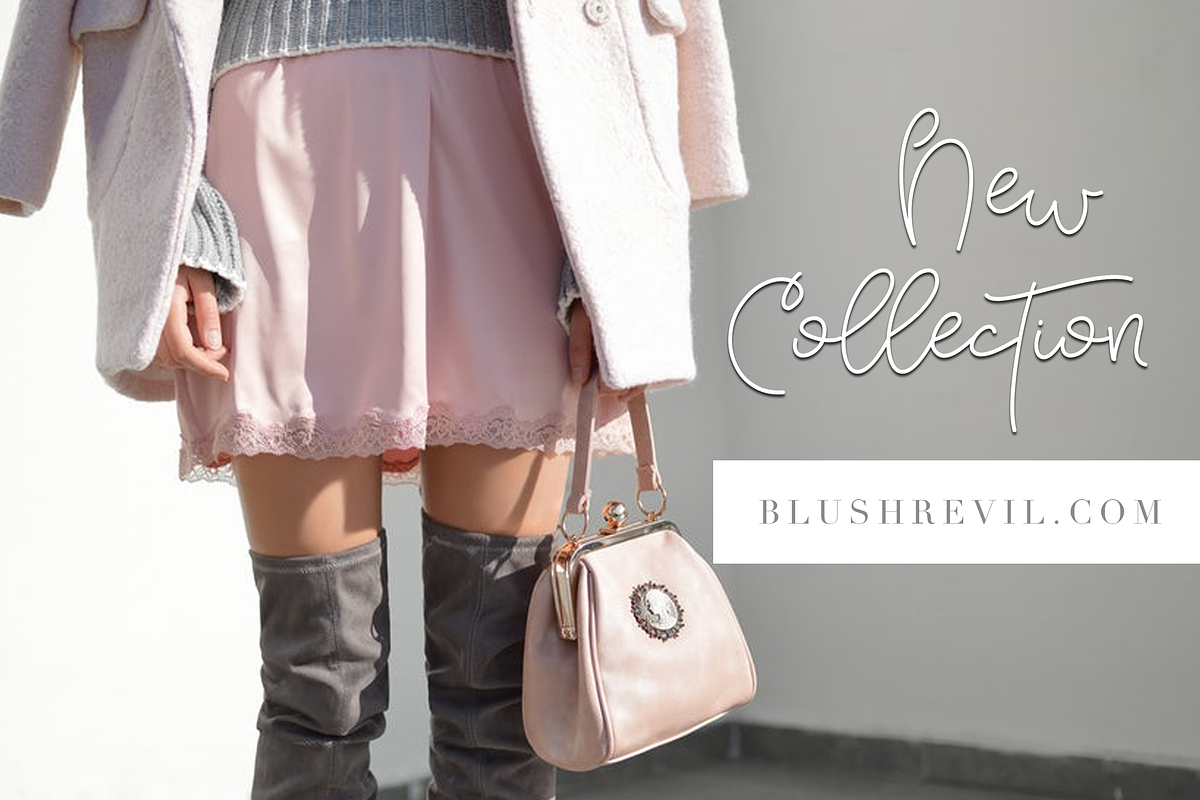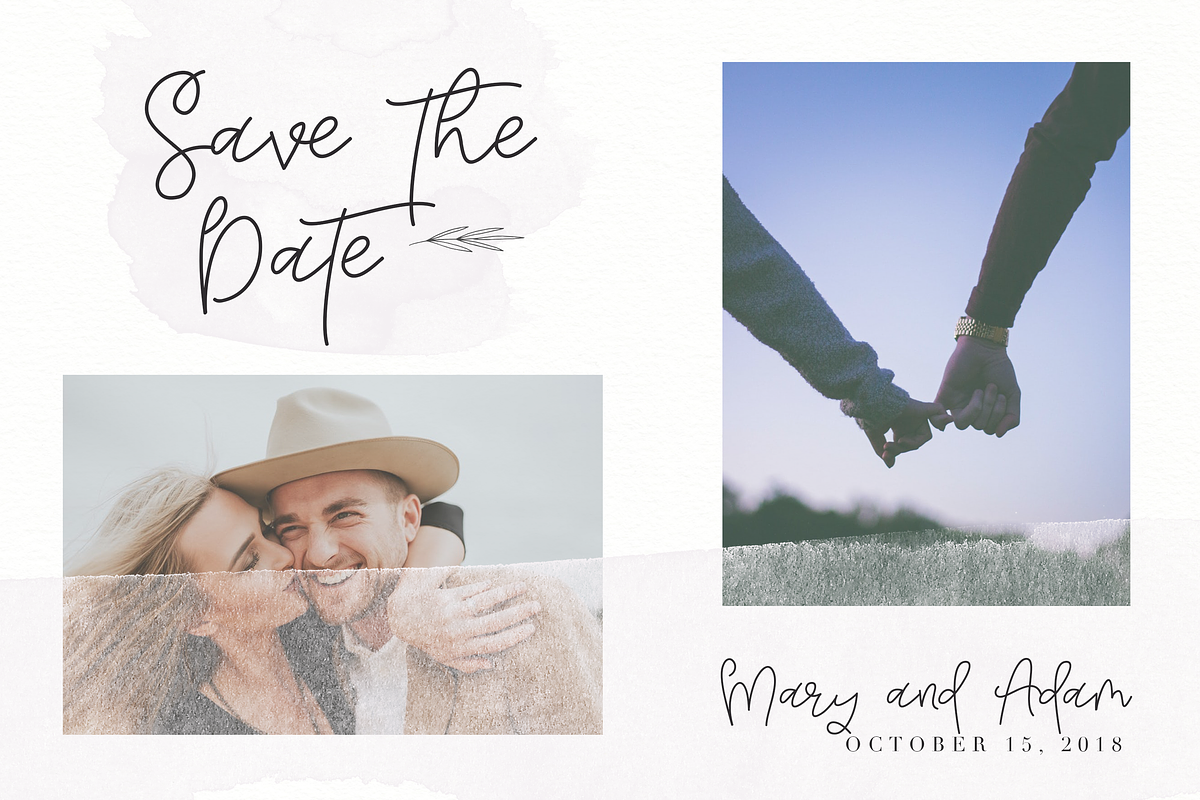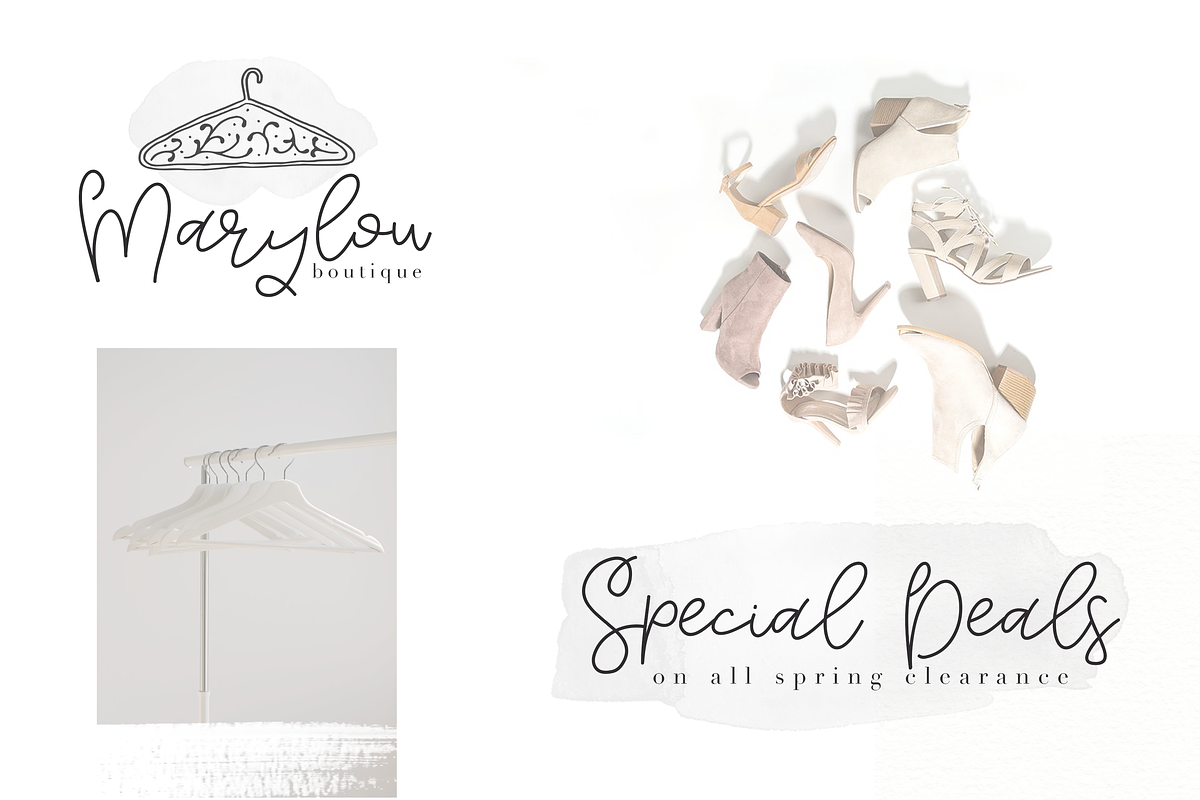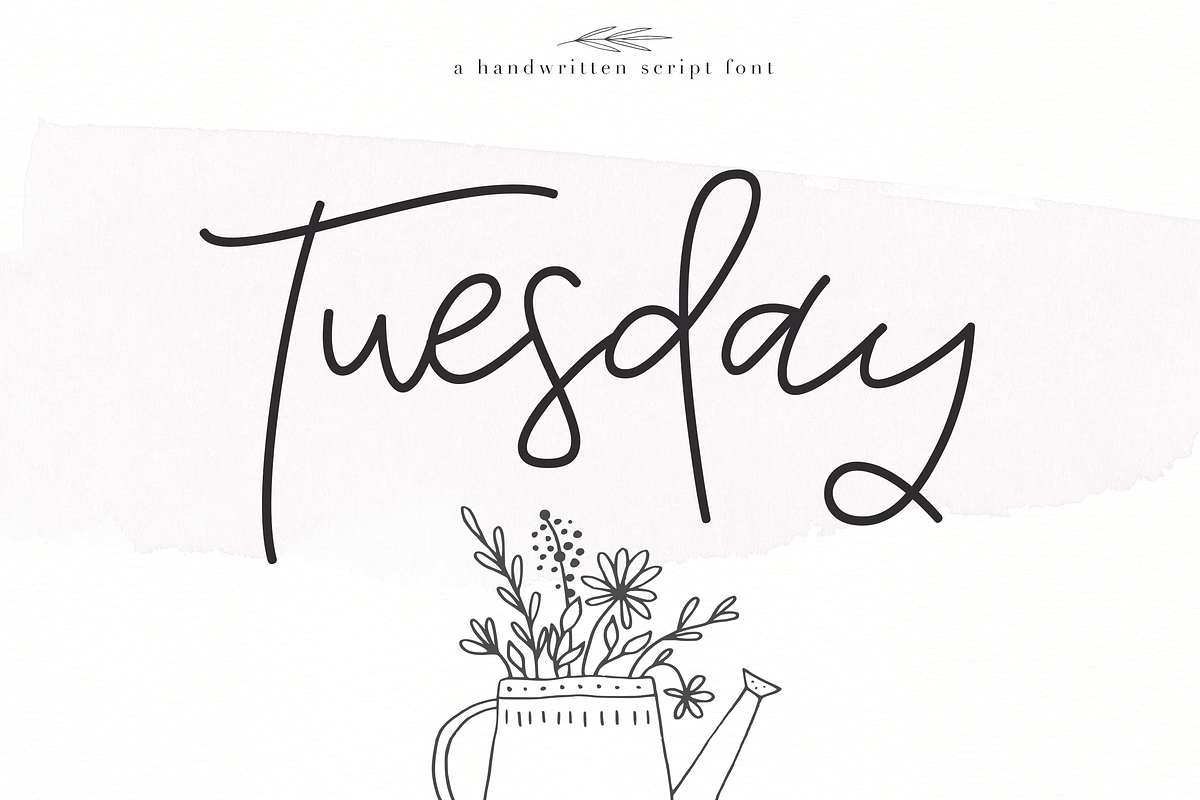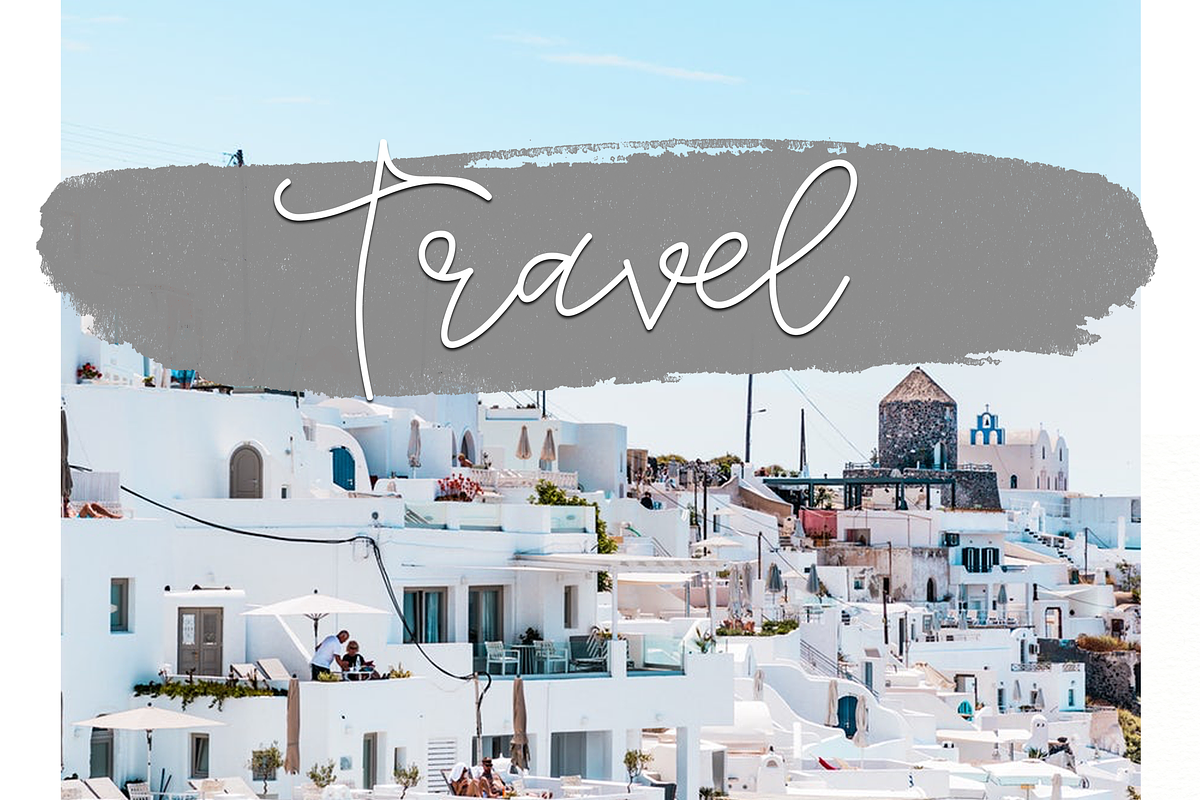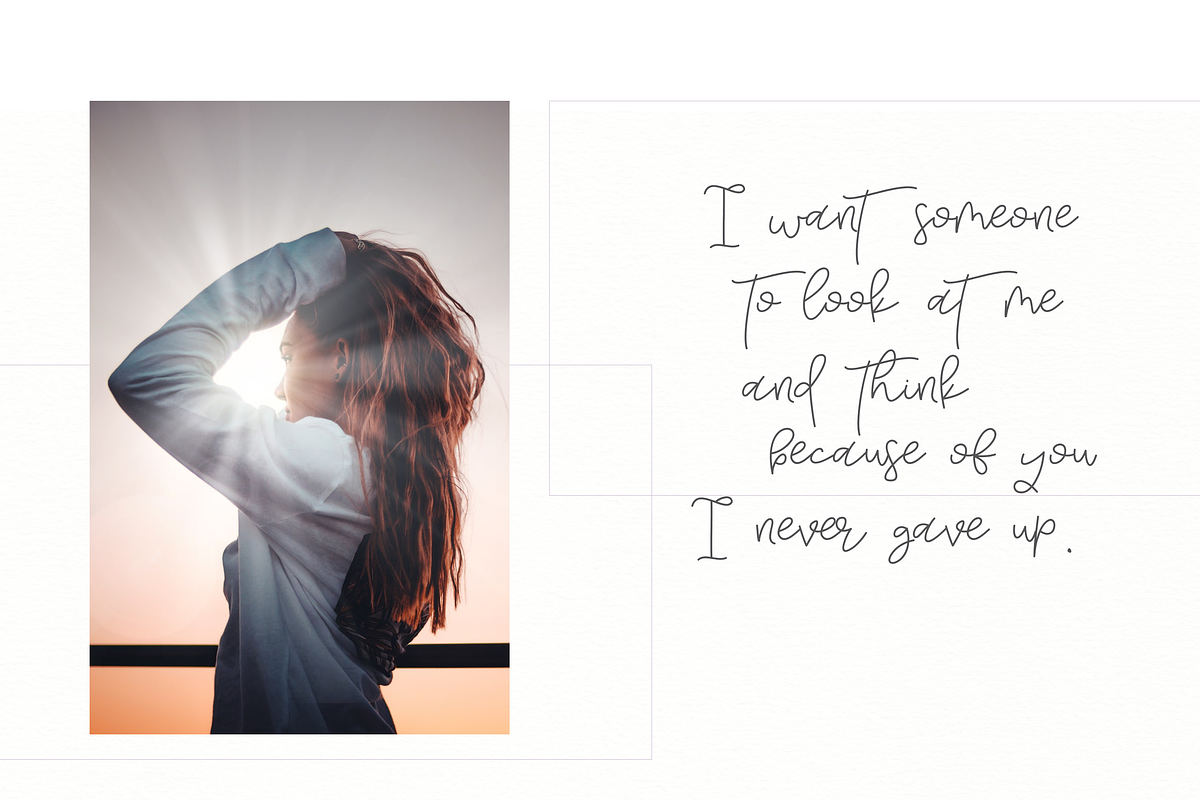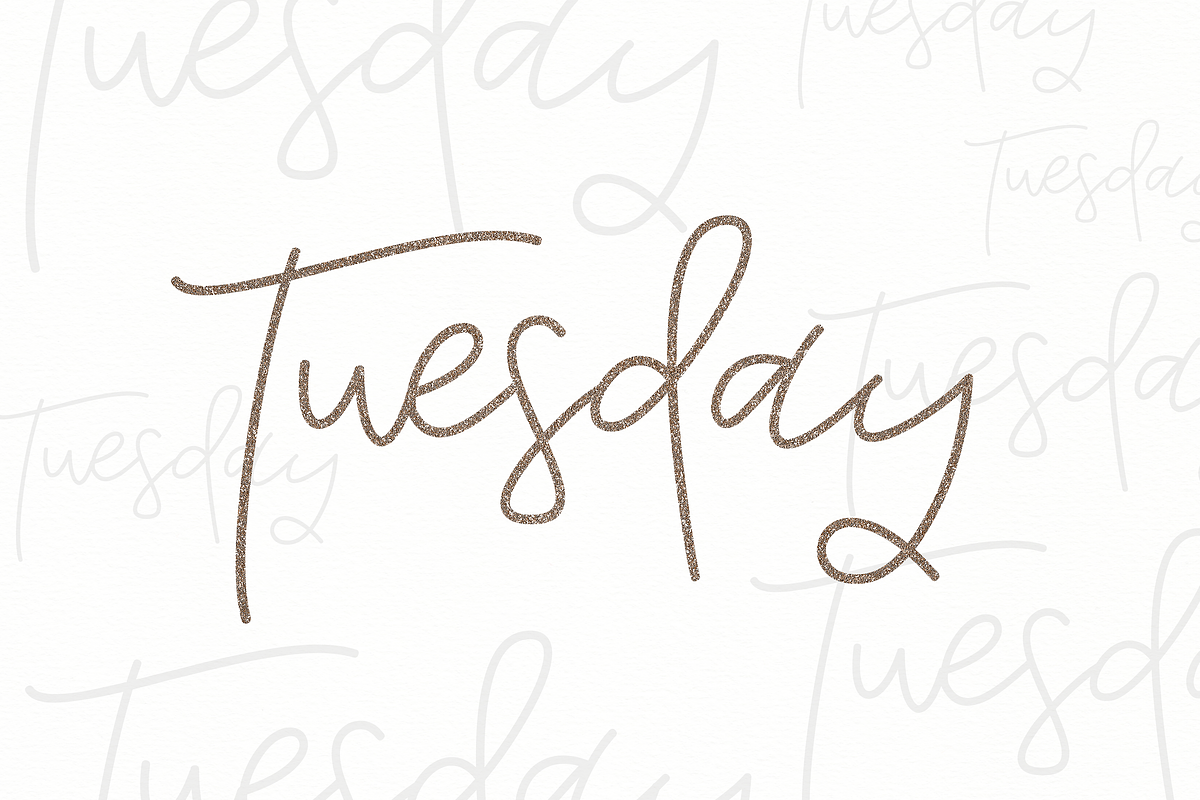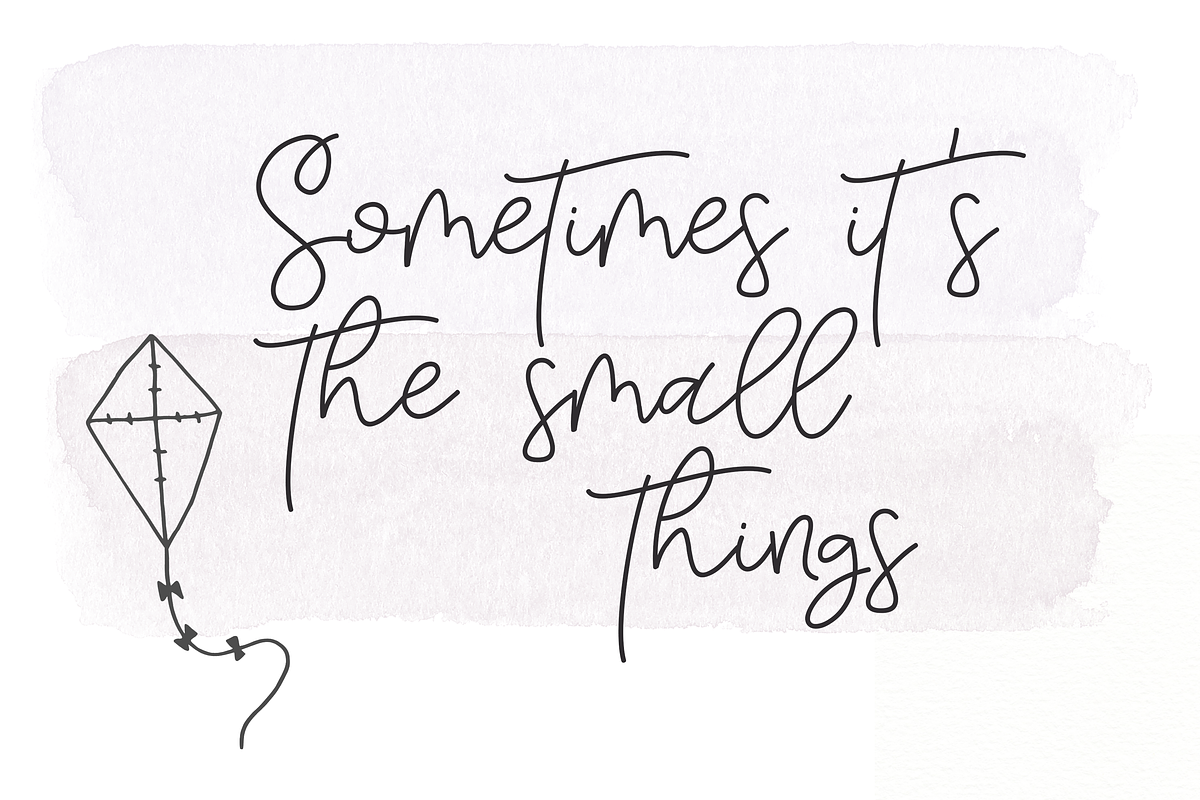
Tuesday - Handwritten Script Font
Tuesday is a whimsical script font. The letters are unique and bouncy.
This font is perfect for quotes, headings, blogs, logos, invitations and more!